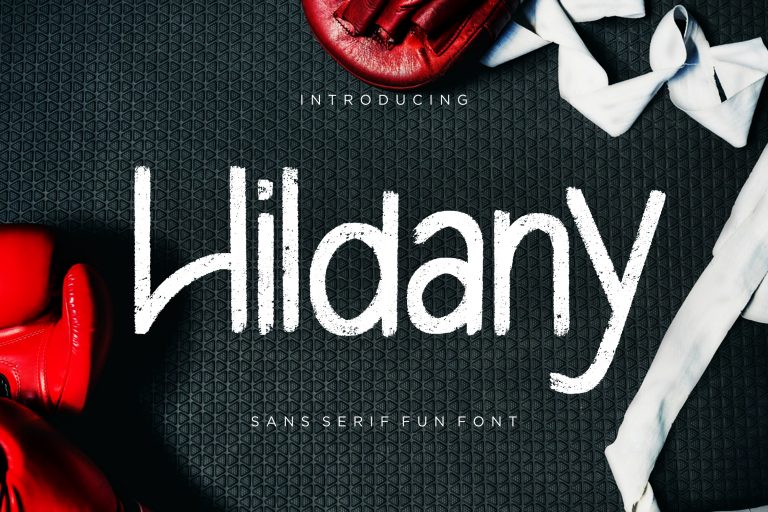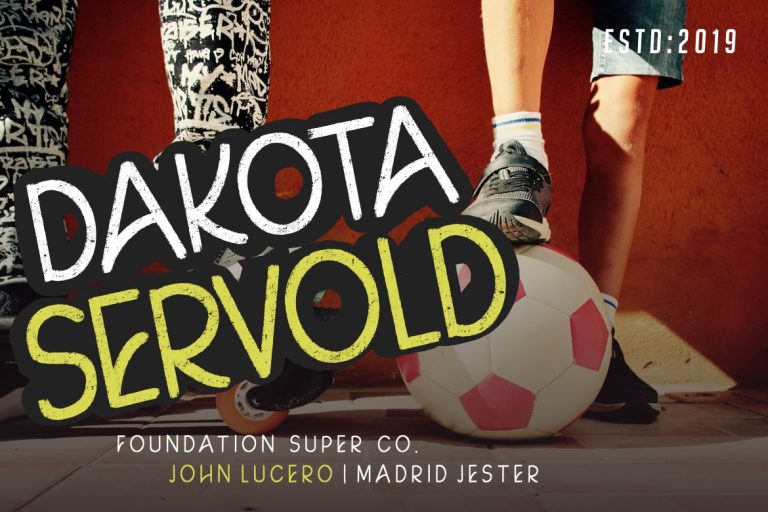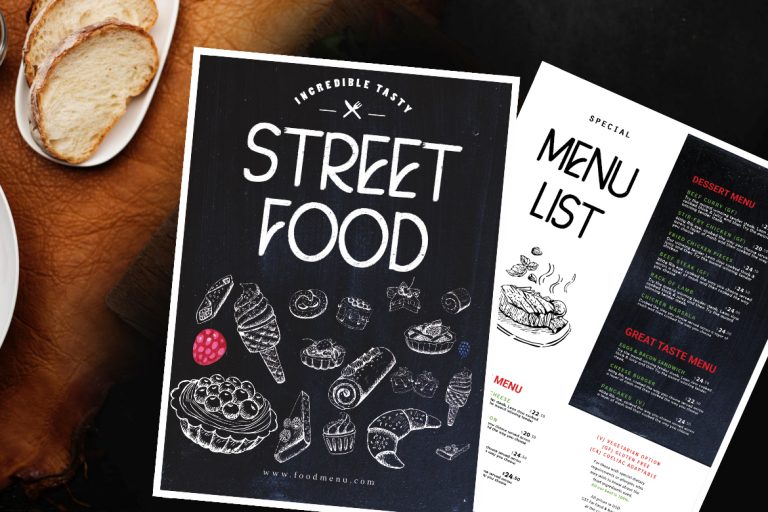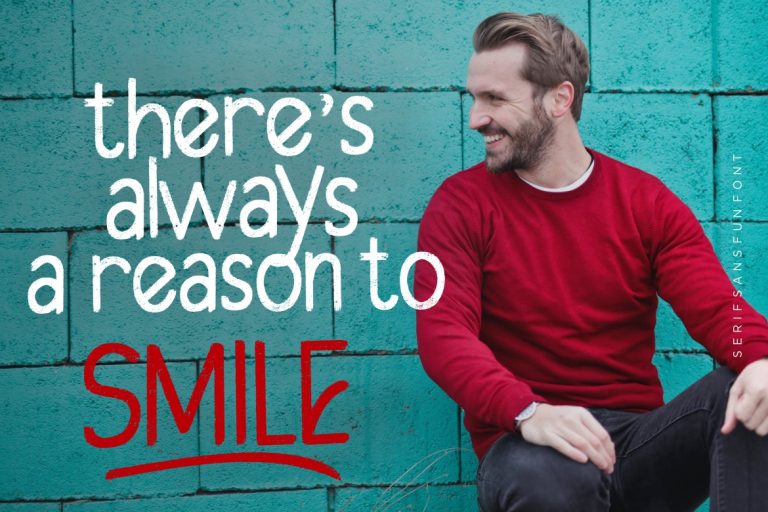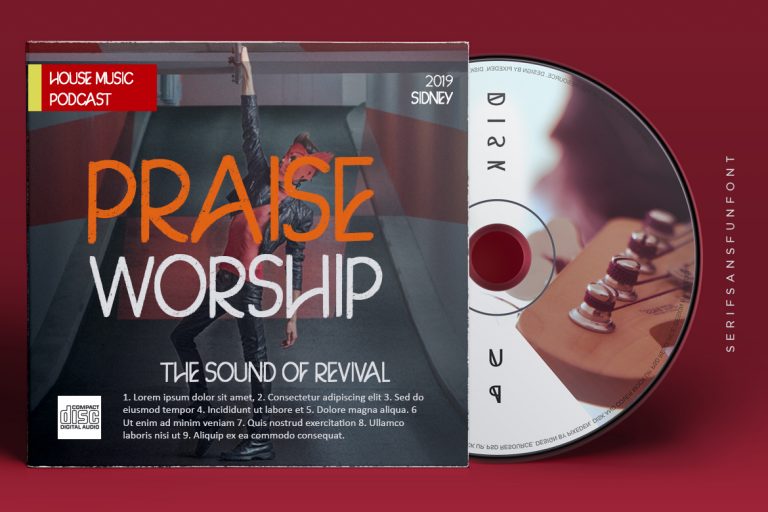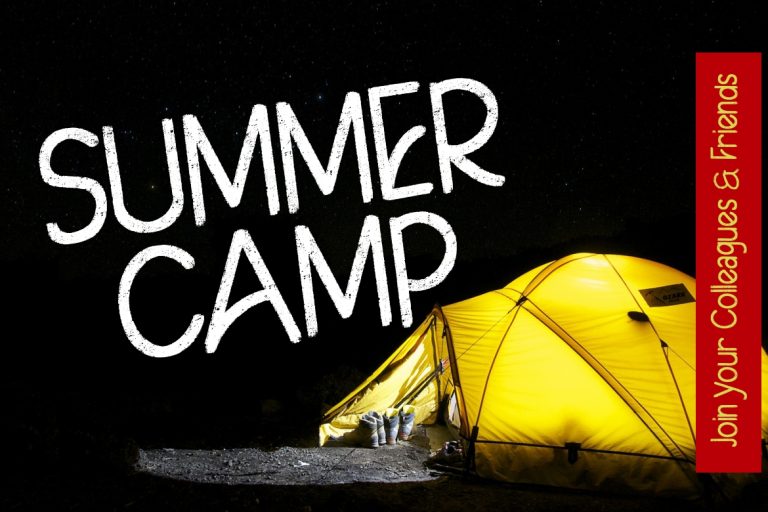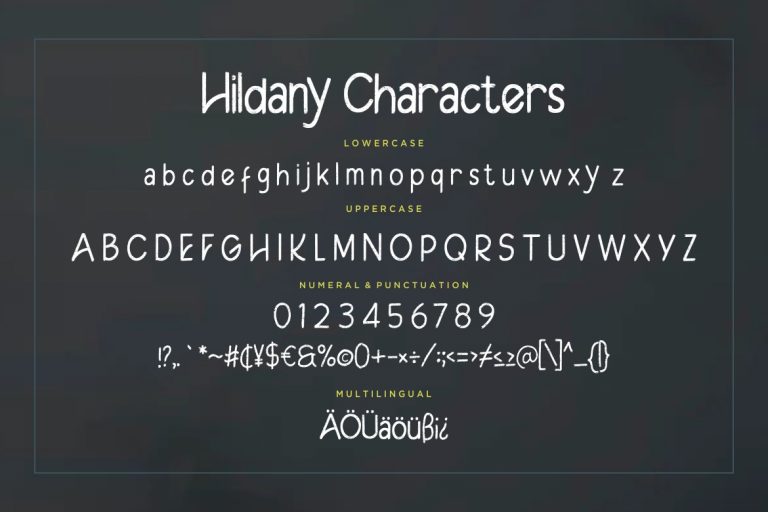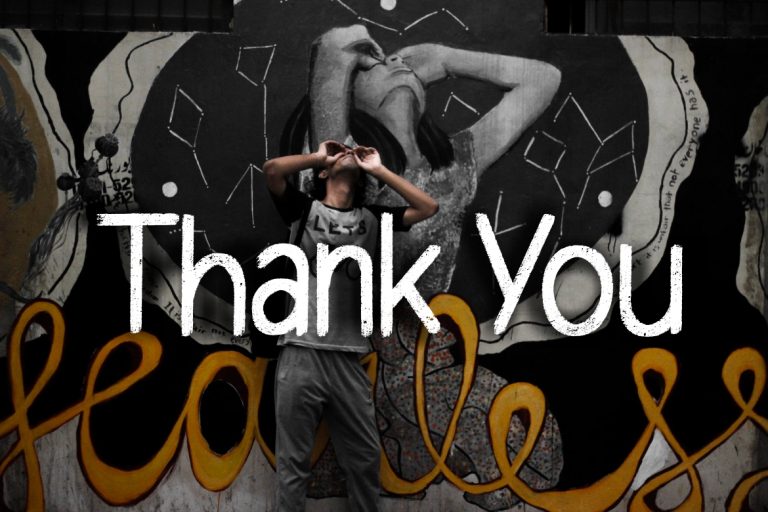
Hildany Sans Fun
Hildany is sans serif fun font with brush hand-drawn. It looks funny, happy and cheer up.
Hildany is perfect for branding projects, logo, wedding designs, social media posts, advertisements, product packaging, product designs, label, photography, watermark, invitation, stationery and any projects that need handwriting taste.
- Fonts include multilingual support for; ä ö ü Ä Ö Ü ß ¿ ¡